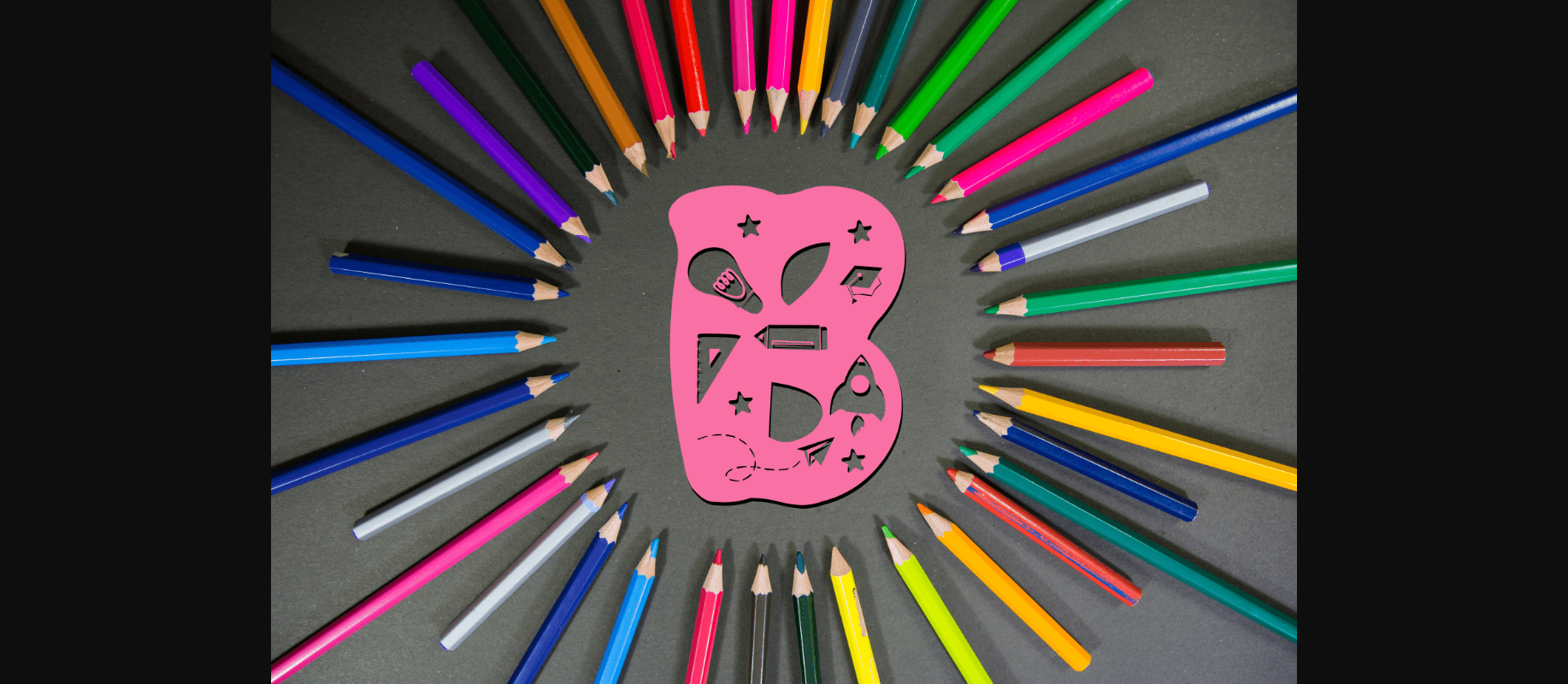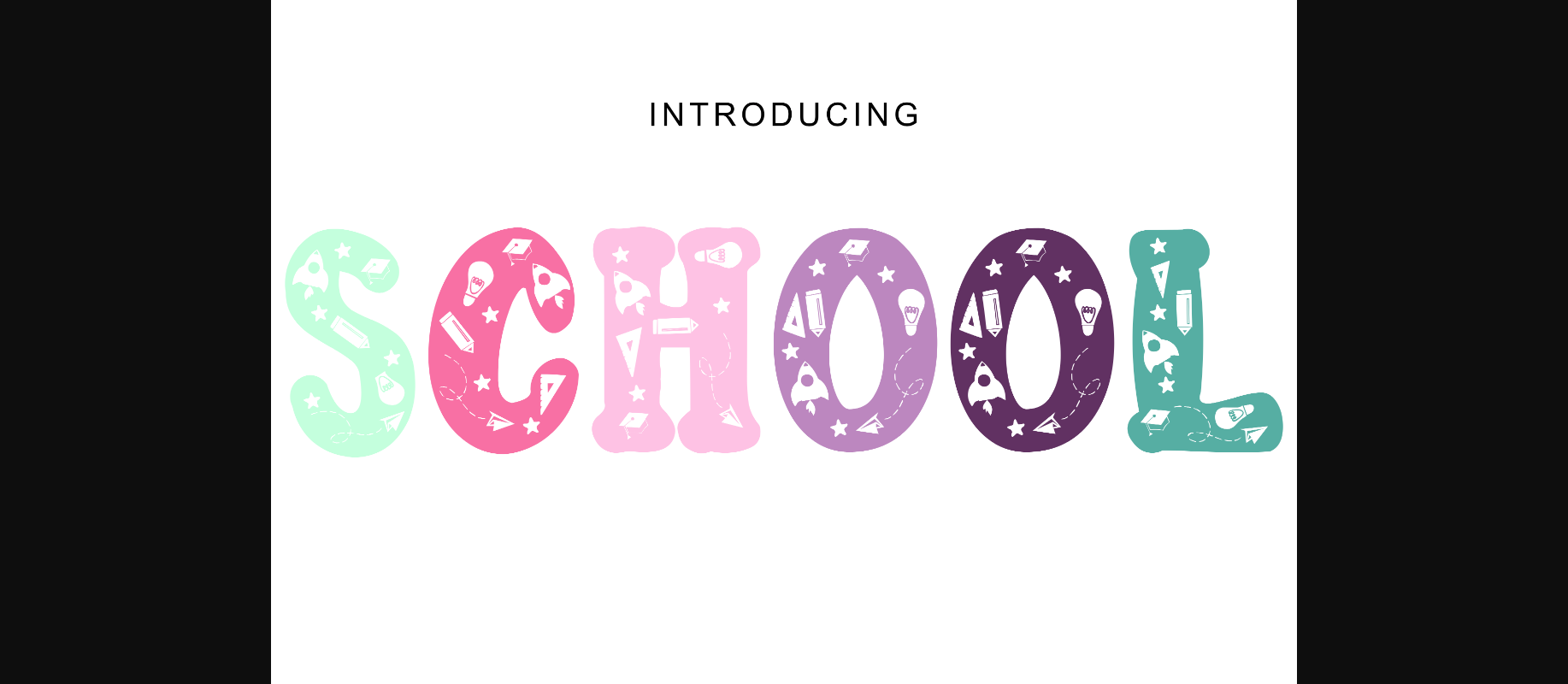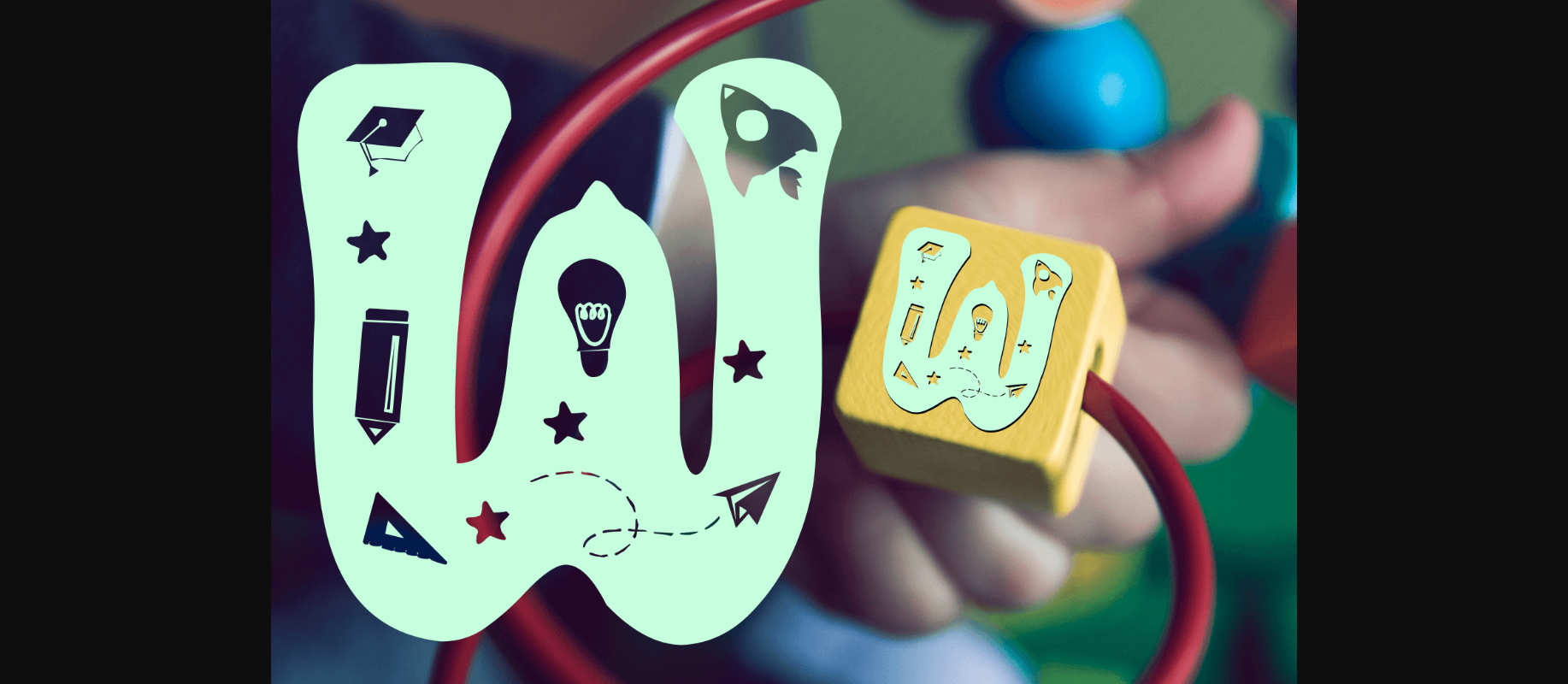
School Font
About School Font
School is a fun and creative decorative font. It looks fresh, playful, and cute, and it will look great for both formal school projects and informal kid’s activity creations!